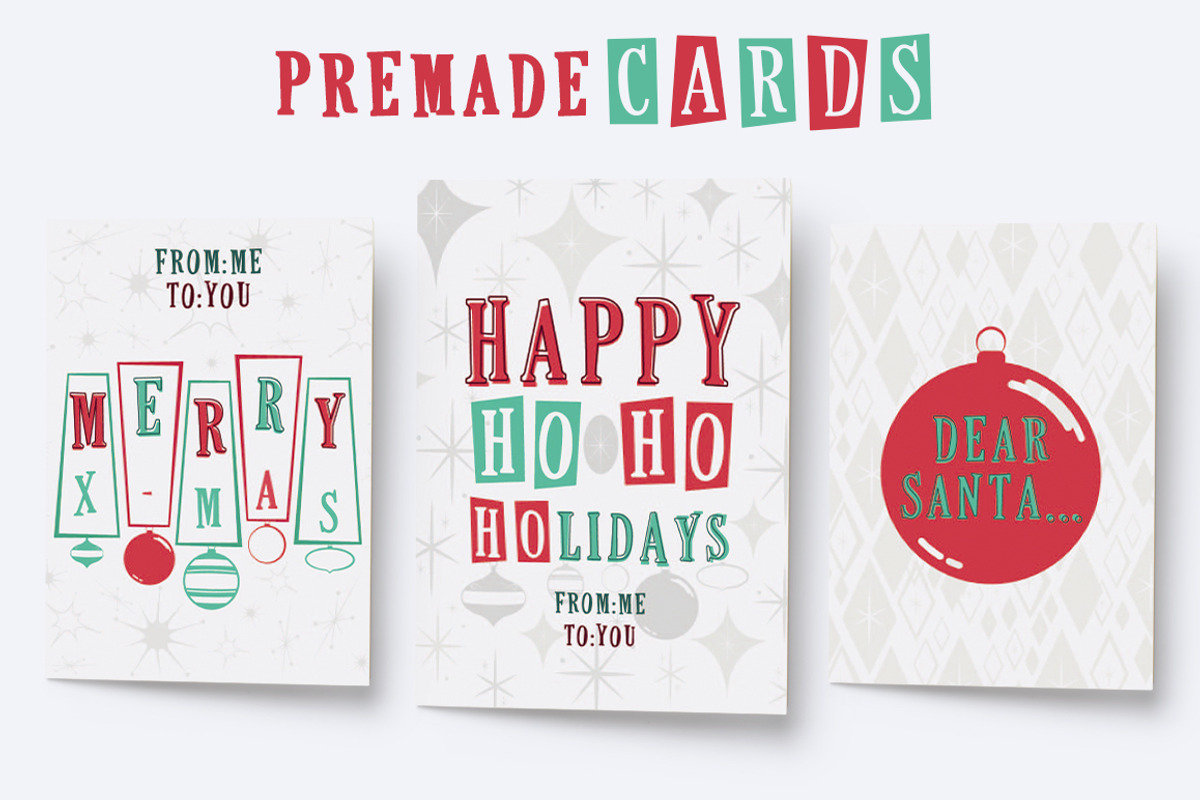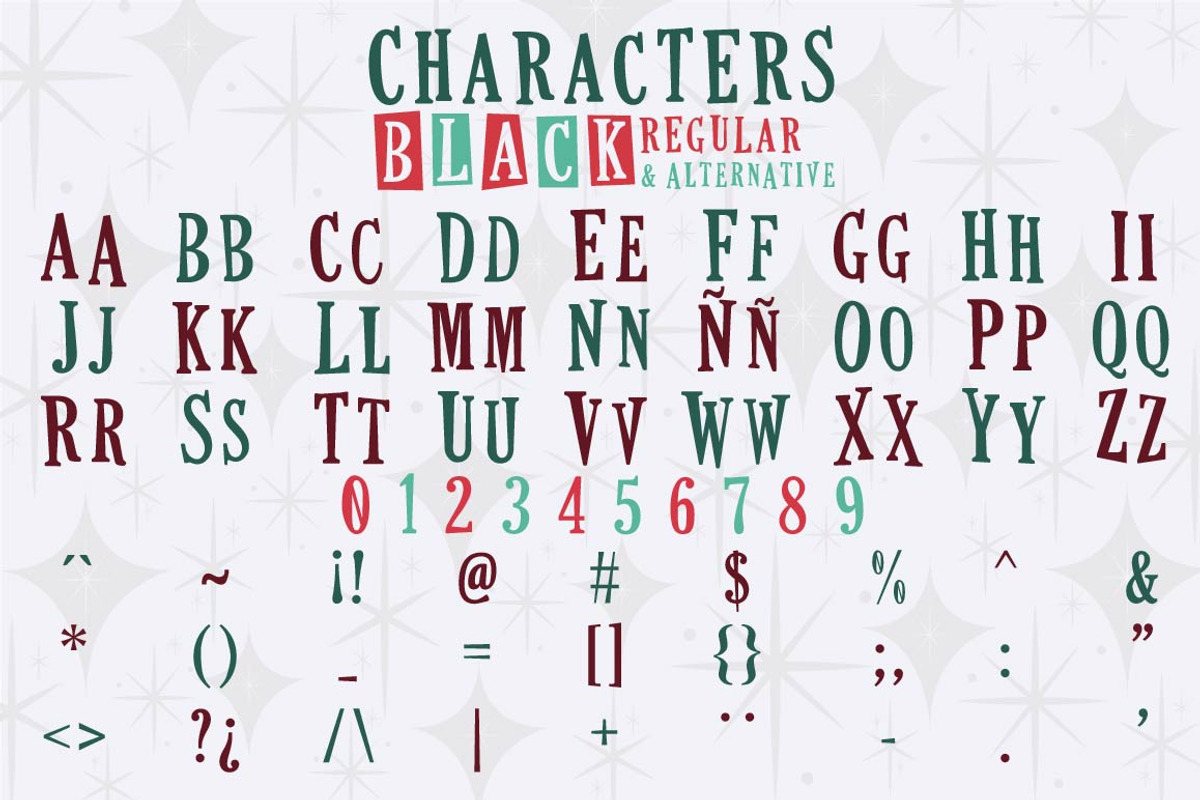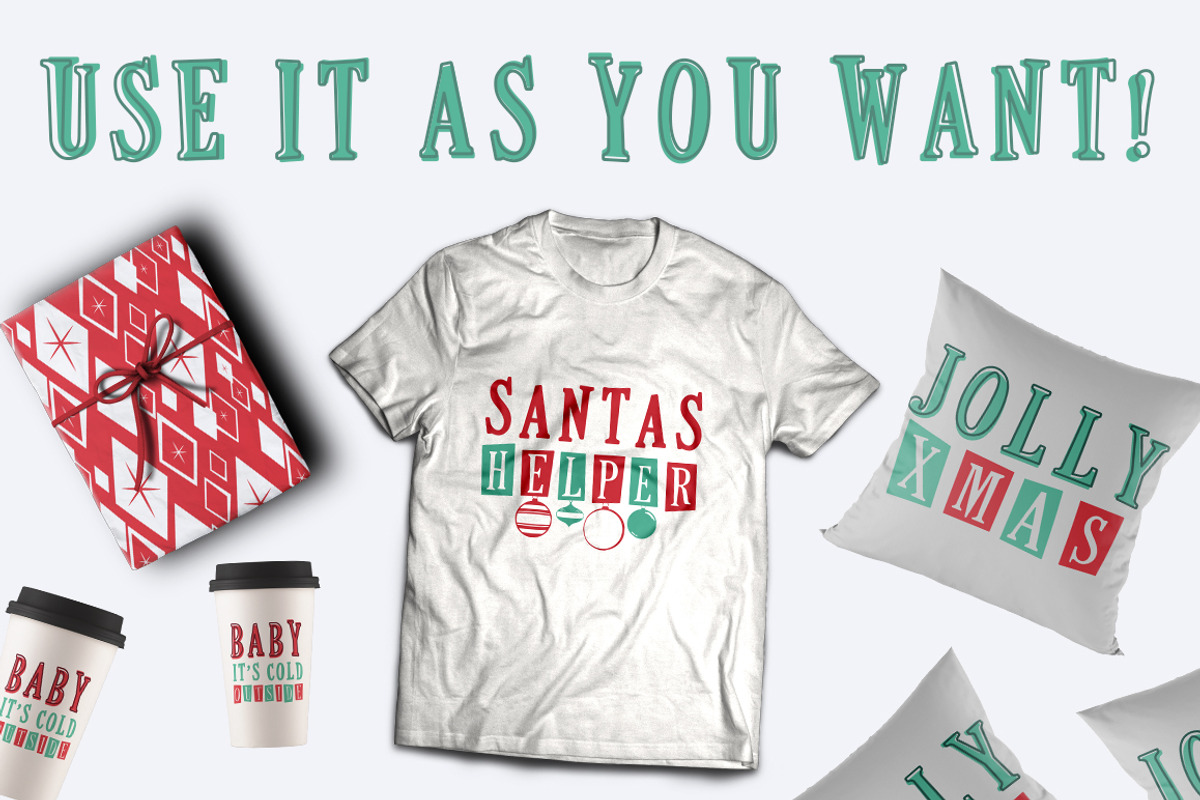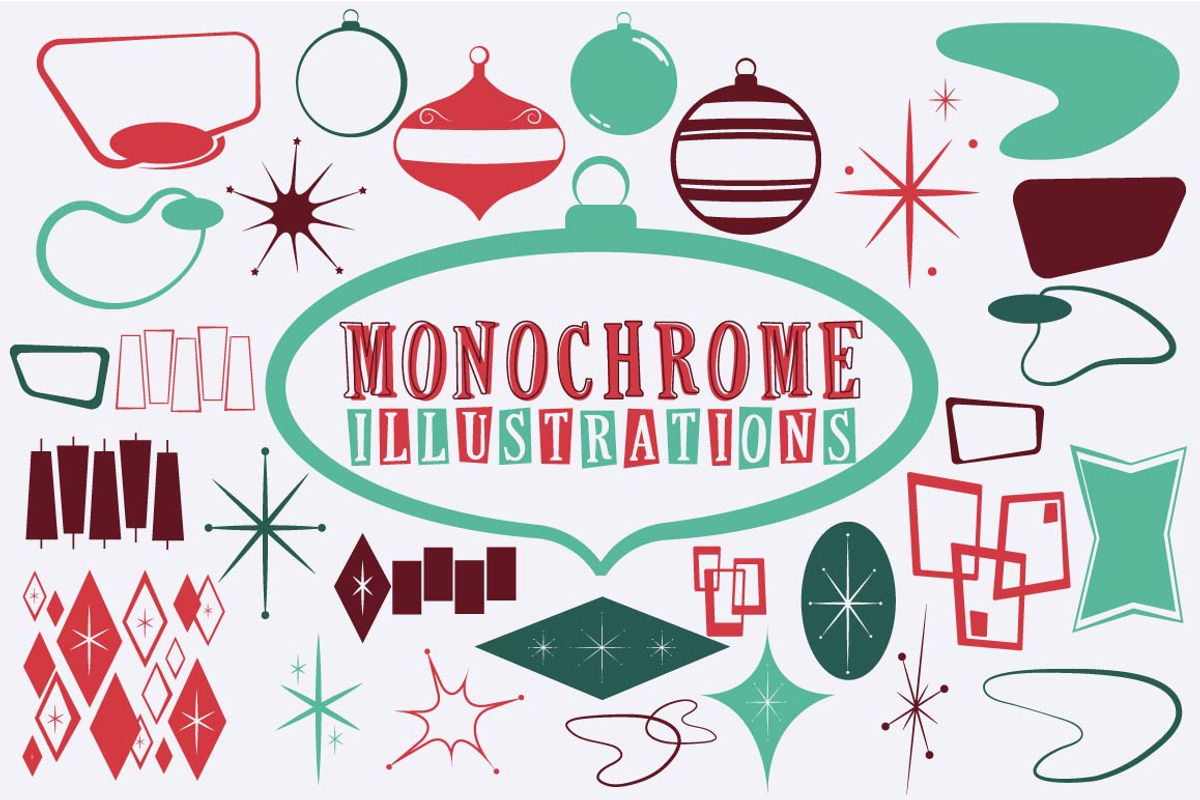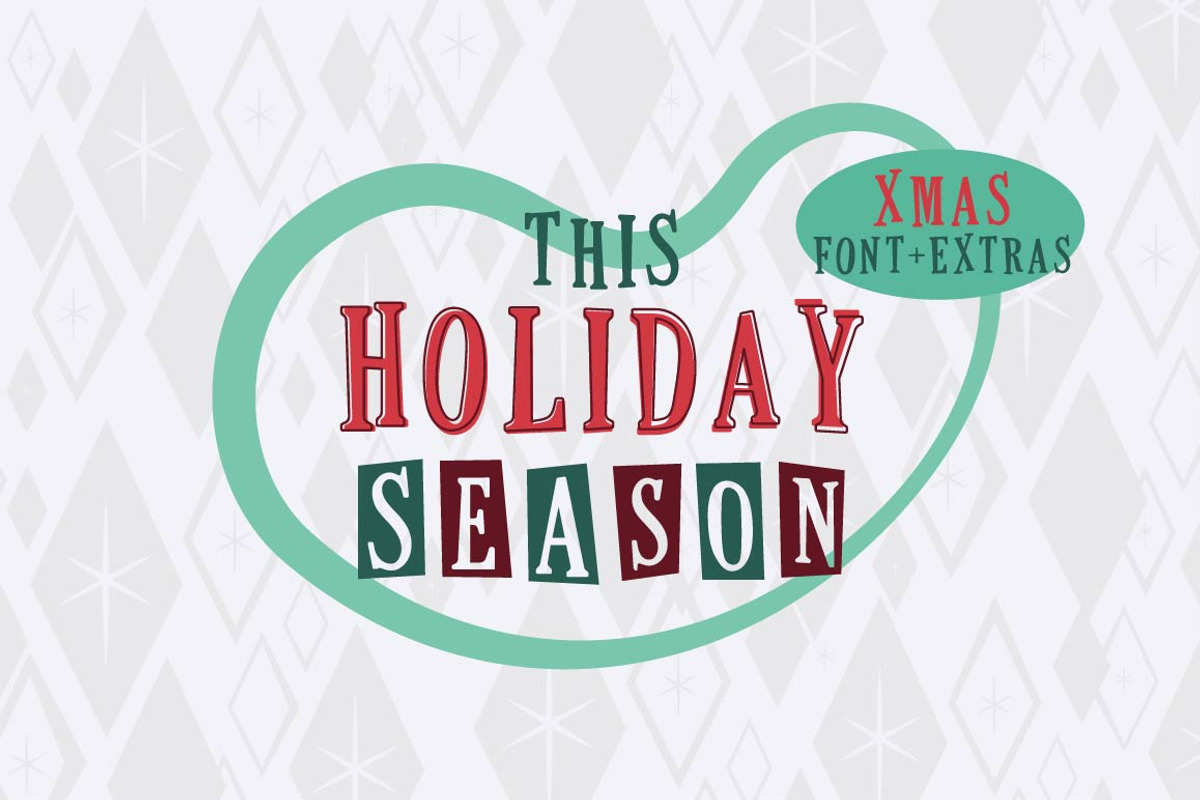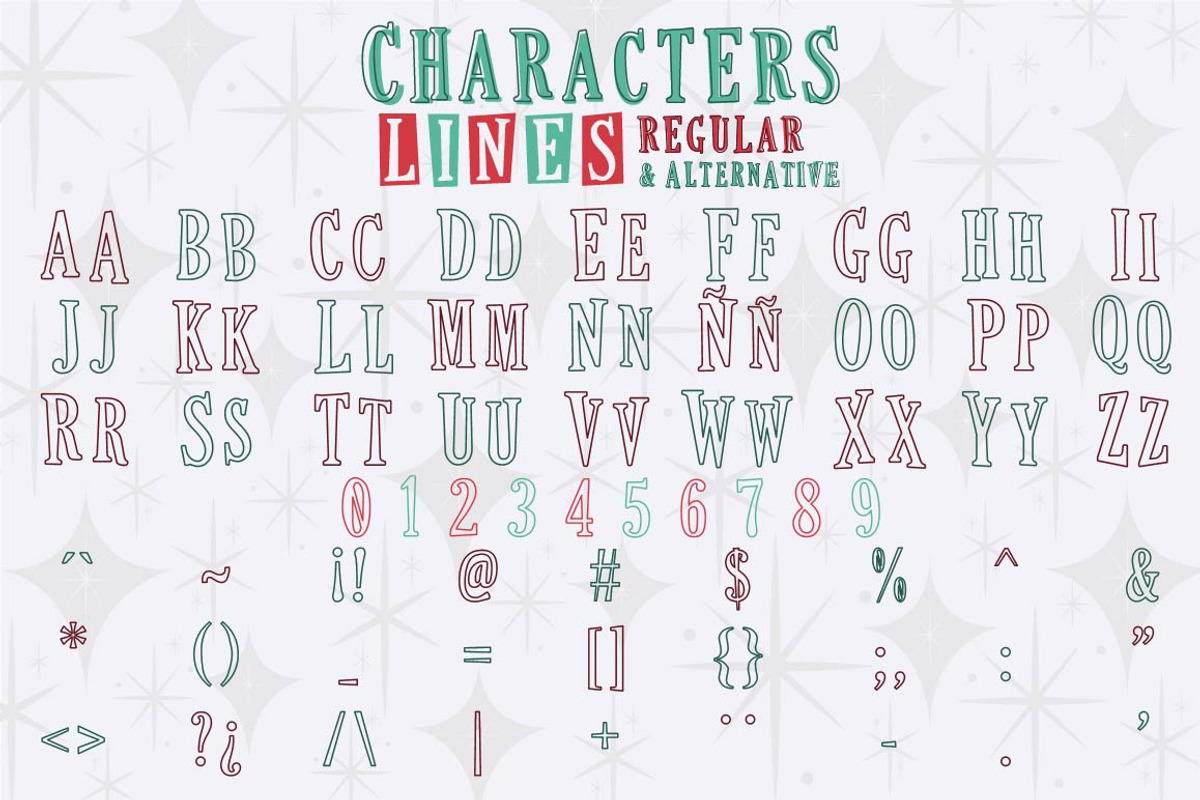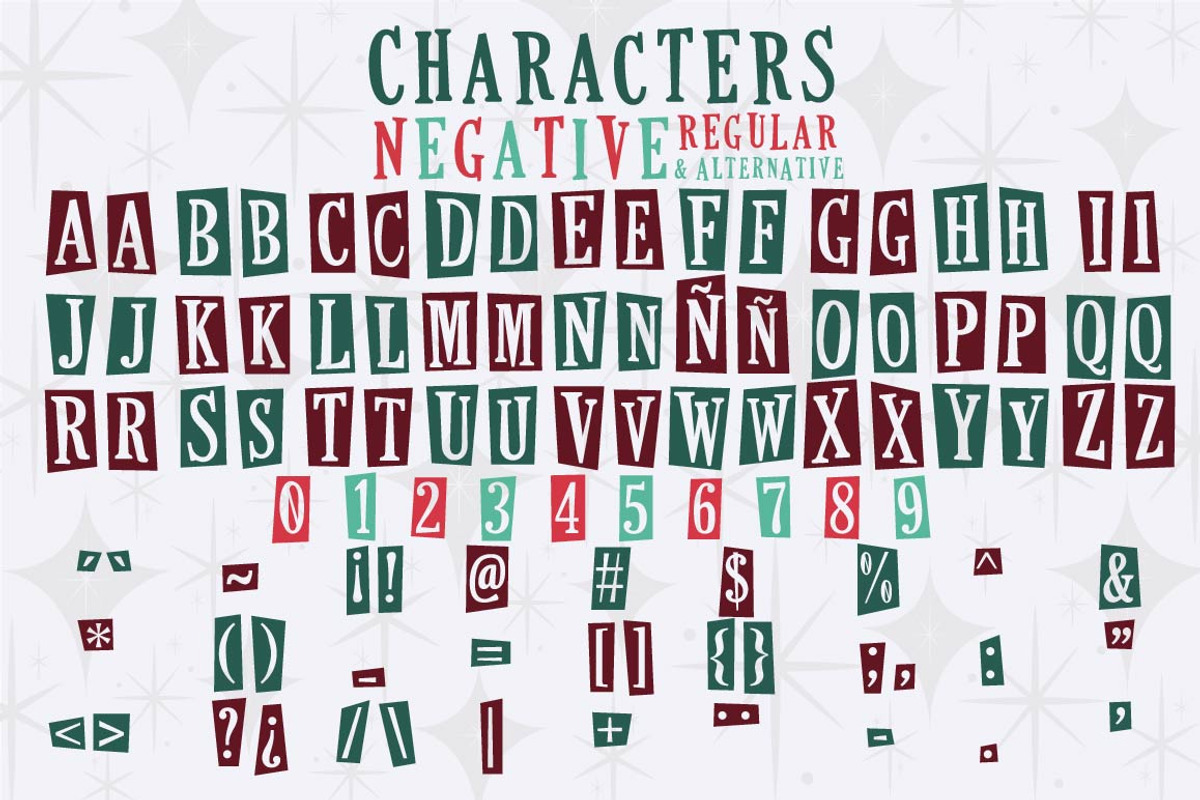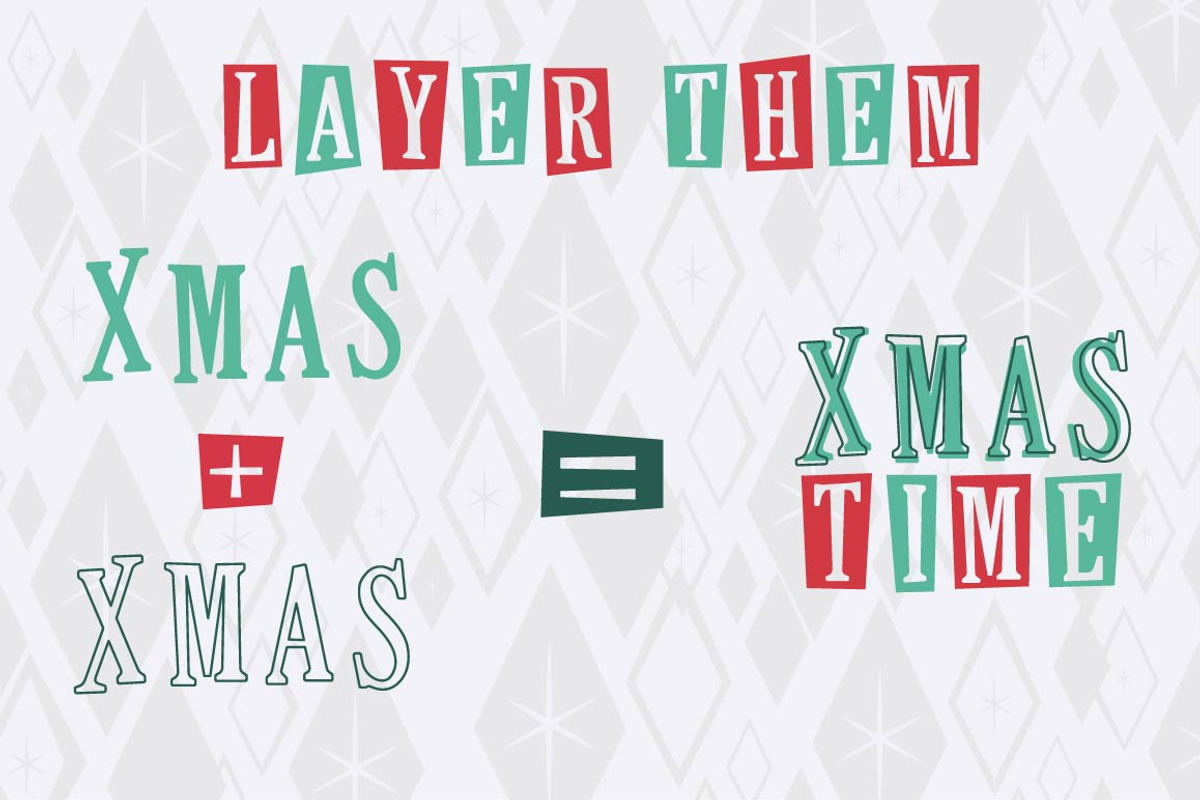
This Holiday Season - Christmas font
The festivities are upon us, and with them I present to you This Holiday Season Retro Christmas font with a bunch of FREE bonus monochrome illustrations and premade cards you can bring all of your retro christmas creations to live with this awesome set.
-This Holiday season - Black font
-This Holiday season - Alternative Black font
-This Holiday season - Outline font
-This Holiday season - Alternative Outline font
-This Holiday season - Negative font
-This Holiday season - Alternative Negative font